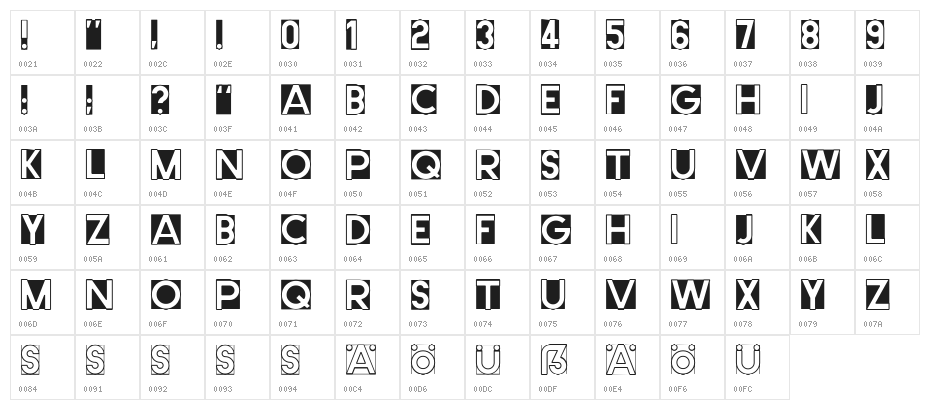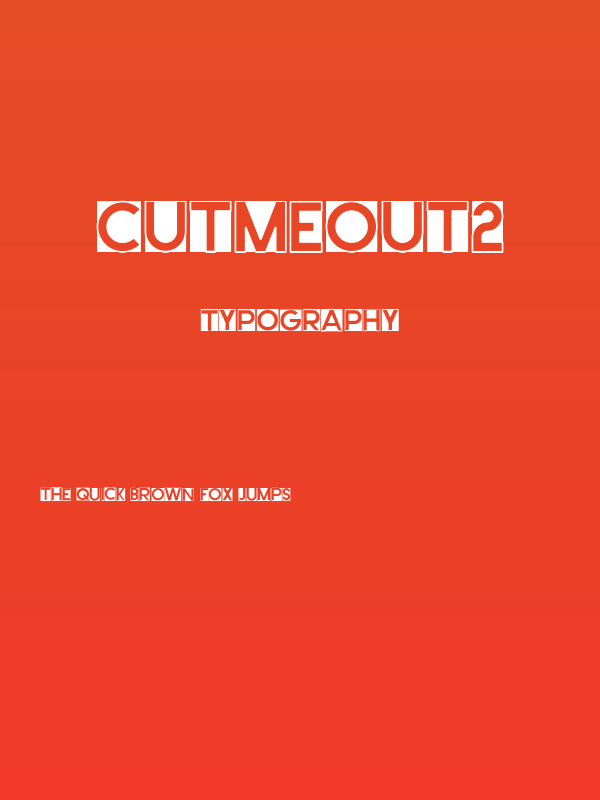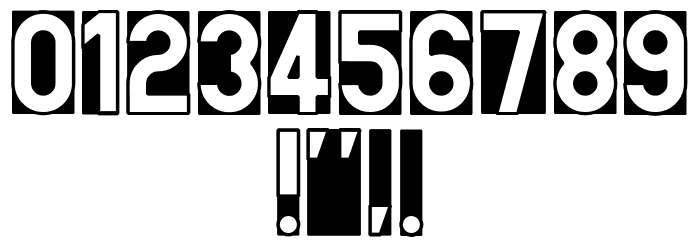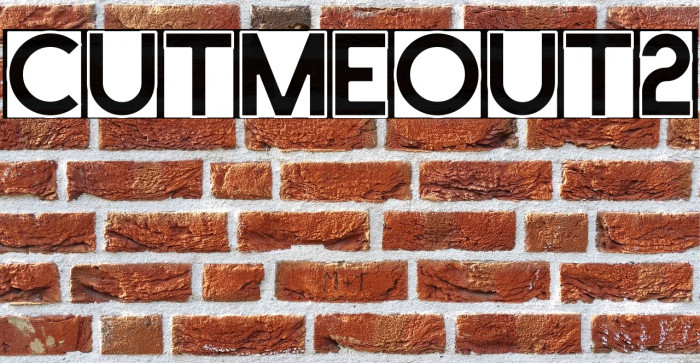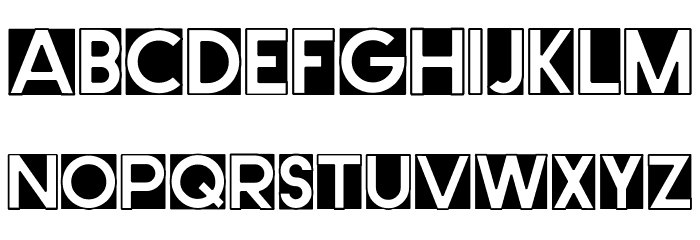
CutMeOut2 Font
CutMeOut2 Description
This font features a bold, geometric design with a strong emphasis on contrast. Each character is encased in a solid black square, creating a striking visual effect. The letters are uppercase, with a modern and edgy style that stands out. The numbers and special characters follow the same design principle, ensuring consistency across all glyphs. The font's unique appearance makes it ideal for projects that require a bold statement or a contemporary look.